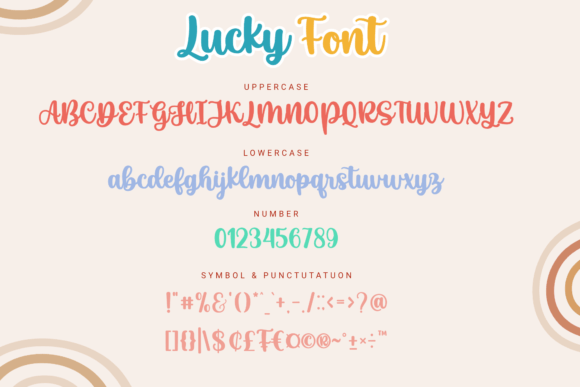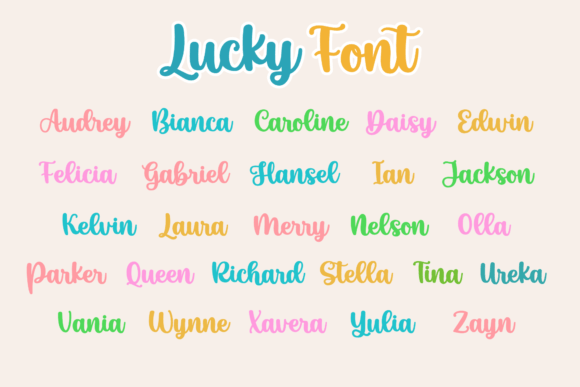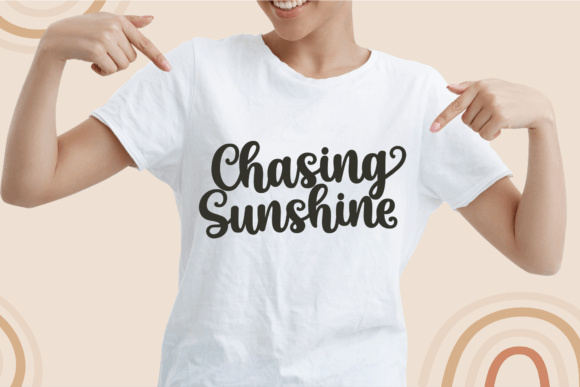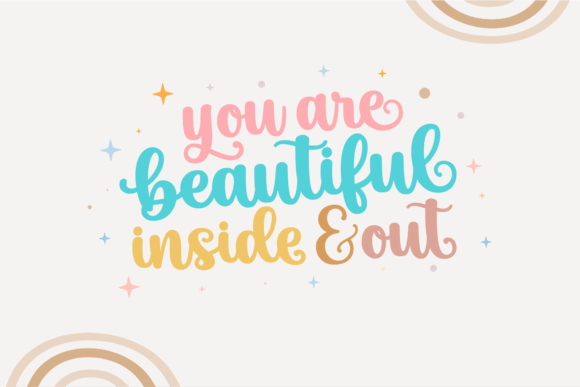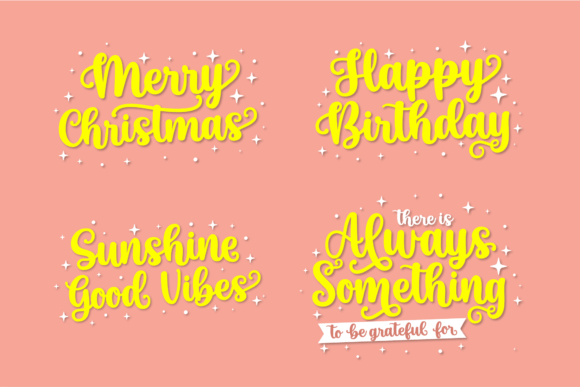
Lucky Font
Lucky Handwritten Font – Sweet and Cute Typeface
The Lucky Handwritten Font is a delightful and versatile script typeface designed to add charm and personality to your creative projects. With its sweet handwritten strokes and approachable style, it captures attention while remaining easy to use. Whether you’re creating wedding invitations, stationery, or social media posts, this font ensures your designs feel unique and stylish.
A Handwritten Script with Style
The Lucky Handwritten Font combines smooth handwritten curves with a casual yet elegant rhythm. Its balanced proportions make it highly readable, while its playful strokes provide a creative, friendly touch. Because of this, it works beautifully for both professional branding and personal crafts.
Perfect for Wedding Invitations and Stationery
One of the most popular uses of the Lucky Handwritten Font is in wedding stationery. From invitations and menus to thank-you notes, its charming handwritten style adds romance and personality. At the same time, it works wonderfully for greeting cards, posters, and branding projects that need a cute and stylish handwritten script.
The Lucky Handwritten Font adapts well across many design contexts. From logos and product packaging to social media content and event signage, it adds a sweet handwritten look. Its balance of elegance and playfulness ensures it works for both casual and professional applications.
Why Designers Love Lucky Font
Designers appreciate the Lucky HandwrittenFont because it combines charm with practicality. It is decorative enough for romantic projects while still being clean and versatile for branding. This balance makes it a must-have font for many creative toolkits.
In summary, the Lucky HandwrittenFont is a sweet, cute, and versatile script typeface. With its flowing handwritten strokes, quick installation, and wide usability, it is perfect for wedding invitations, stationery, social media posts, and branding. Don’t miss the chance to download Lucky HandwrittenFont and give your designs a charming, creative touch.